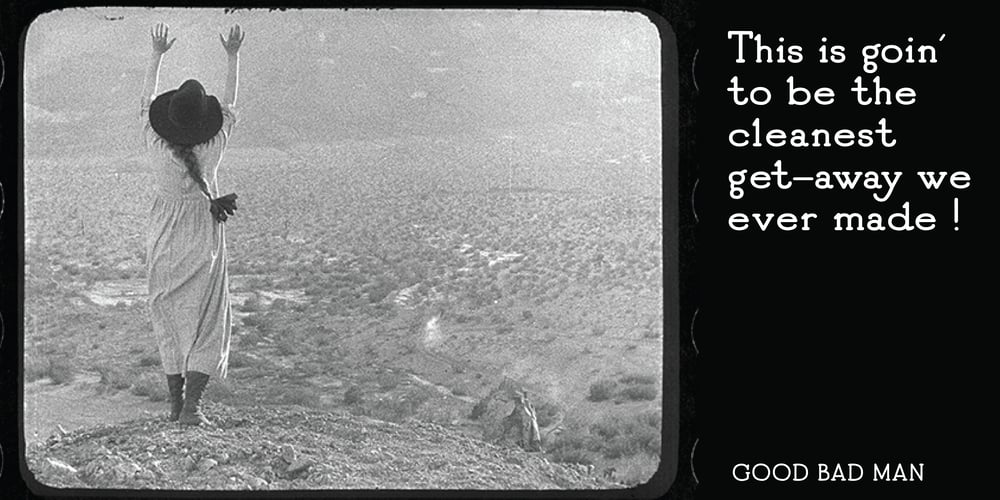
Good Bad Man Font Family was designed by Chank Diesel, Sierra Kamatchus and published by Chank. Good Bad Man contains 2 styles and family package options. This historic revival font was created especially for use in the preservation and restoration of the 1916 silent film “The Good Bad Man,” starring Douglas Fairbanks. There is only one copy of the original film print in existence, and when the film was restored for a screening at the San Francisco Film Festival in 2014 the new font was created to best recreate the intent of the original lettering in the film. It is a smooth and pleasant vintage lettering style, originally designed for use on silver screens, now fully rendered in OpenType and ready for you to use in your designs or web pages today. There’s a neat story about this historic silent film font from The Atlantic magazine here: here.